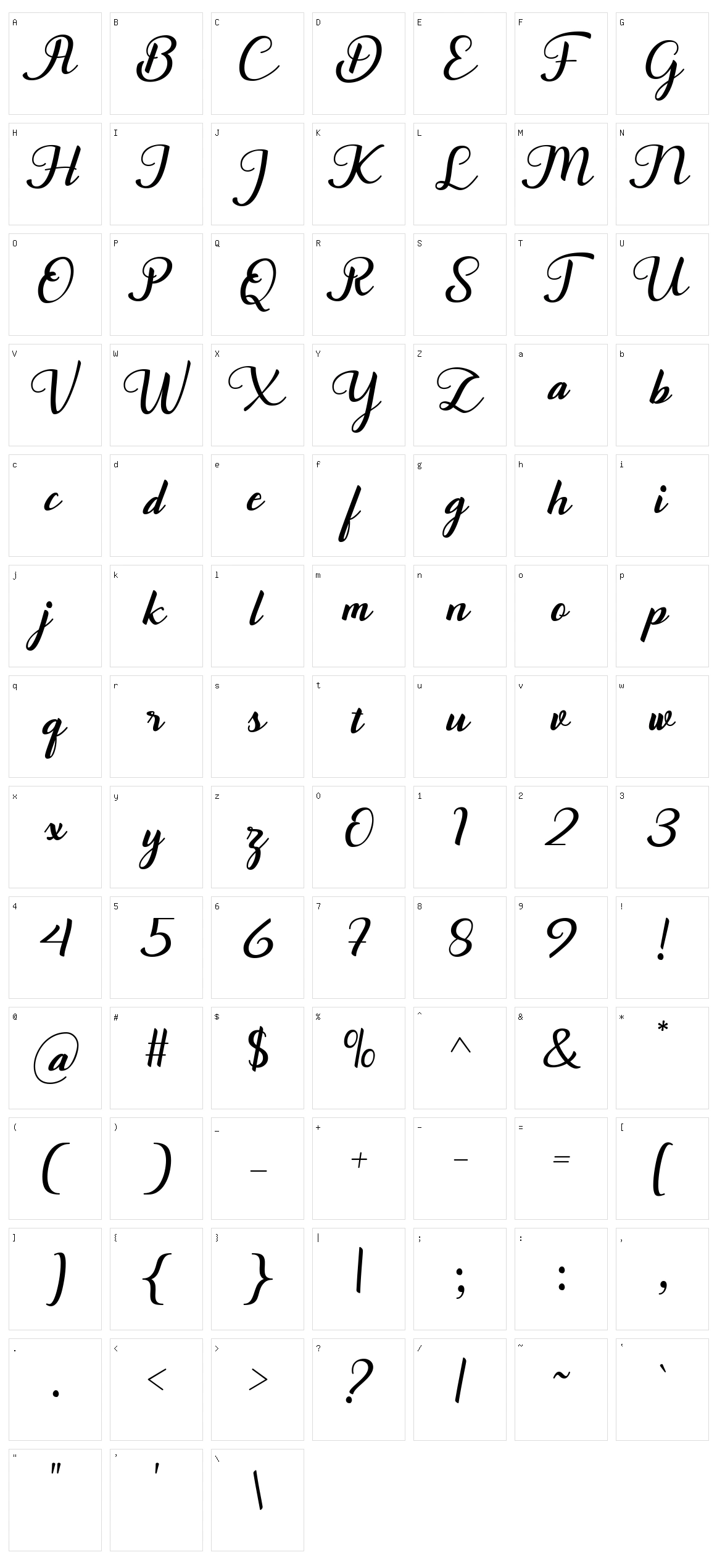
The free font Togetha is carefully designed by 7NTypes, showcasing a thoughtful balance of creativity and usability and falls under the Script font style. When you download the ZIP file, it contains only 45.66 KB of font files, making it lightweight and quick to download. Please review the license details below to understand permitted usage and distribution rights. If license information is not available, we recommend using this font for personal projects only or contacting the author directly for commercial usage permissions.